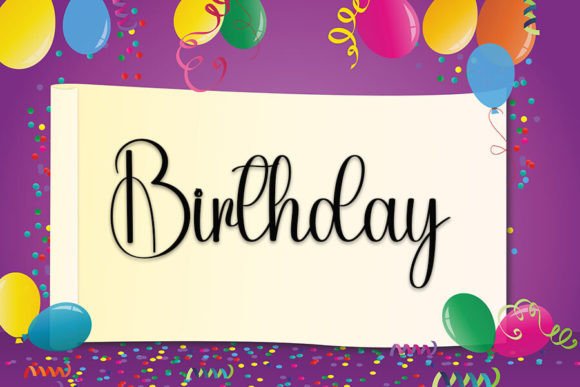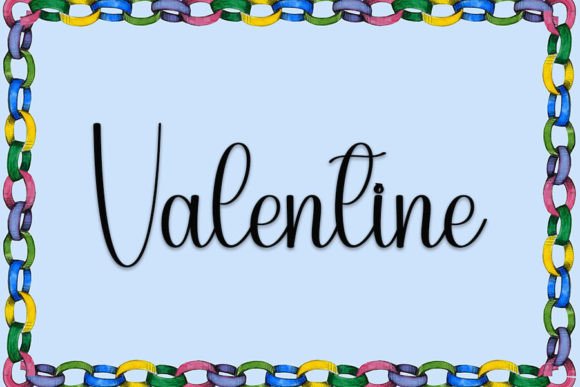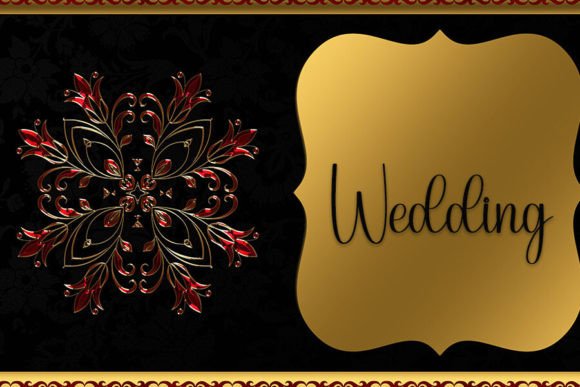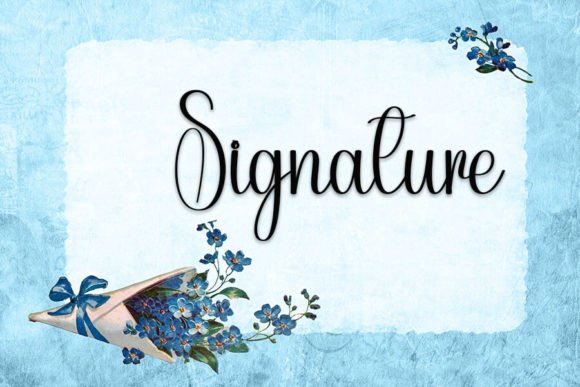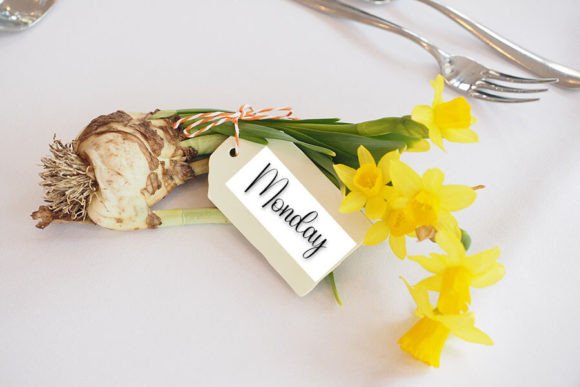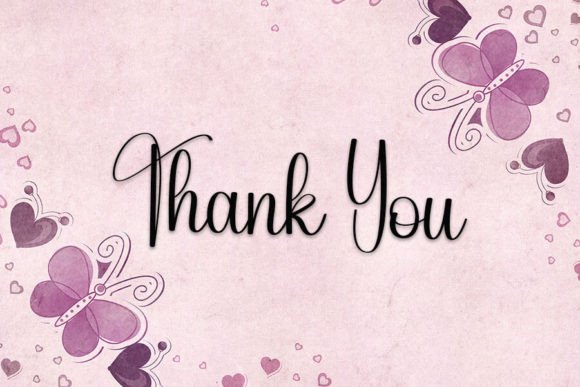
The Anniversary Font: A Timeless Beauty for Your Designs
I’ll never forget the time I was working on a project for a client’s anniversary celebration. I had all the design elements ready, but I was struggling to find the perfect font to convey the elegance and sophistication of the occasion. That’s when I stumbled upon the Anniversary font, and it instantly fell into place. In this article, I’ll share my experience with this beautiful handwritten font, its features, and how to make the most of it in your designs.
A Personal Review: What I Love About Anniversary Font
The Anniversary font has won my heart with its incredibly distinct and timeless style. Here are a few things I love about it:
• ✨ Elegant touch: The font exudes an air of sophistication, making it perfect for special occasions like anniversaries, weddings, and formal events.
• ✅ Unique style: The handwritten font has a distinct character that sets it apart from other fonts, ensuring your designs stand out.
• 💫 Versatility: Anniversary font can be used for a wide range of design projects, from digital graphics to print materials.
While I adore the Anniversary font, there are a few minor quirks to be aware of:
• 🤔 Limited multilingual support: The font might not support all languages, so be sure to check the character set before using it for a project.
• ⚠️ Occasional kerning issues: As with any font, you might encounter some kerning issues, especially when using it at smaller sizes.
3. Experiment with OpenType features, such as ligatures and stylistic alternates, to add more flair to your design.
The Anniversary font comes with a range of OpenType features and glyphs that can enhance your designs. Here are a few tips on how to access and use them:
The Designer Inspiration Behind Anniversary Font
The Anniversary font was designed with the intention of creating a timeless, elegant script that would evoke the romance and sophistication of special occasions. The designer aimed to craft a font that would be both beautiful and versatile, suitable for a wide range of design projects.
What is the Anniversary font best suited for? The Anniversary font is perfect for special occasions like anniversaries, weddings, and formal events. It’s also great for creative projects that require an elegant touch.
Is the Anniversary font suitable for body text? While the Anniversary font is beautiful, it’s best used for headlines and titles. Its elegant style might not be suitable for large blocks of body text.